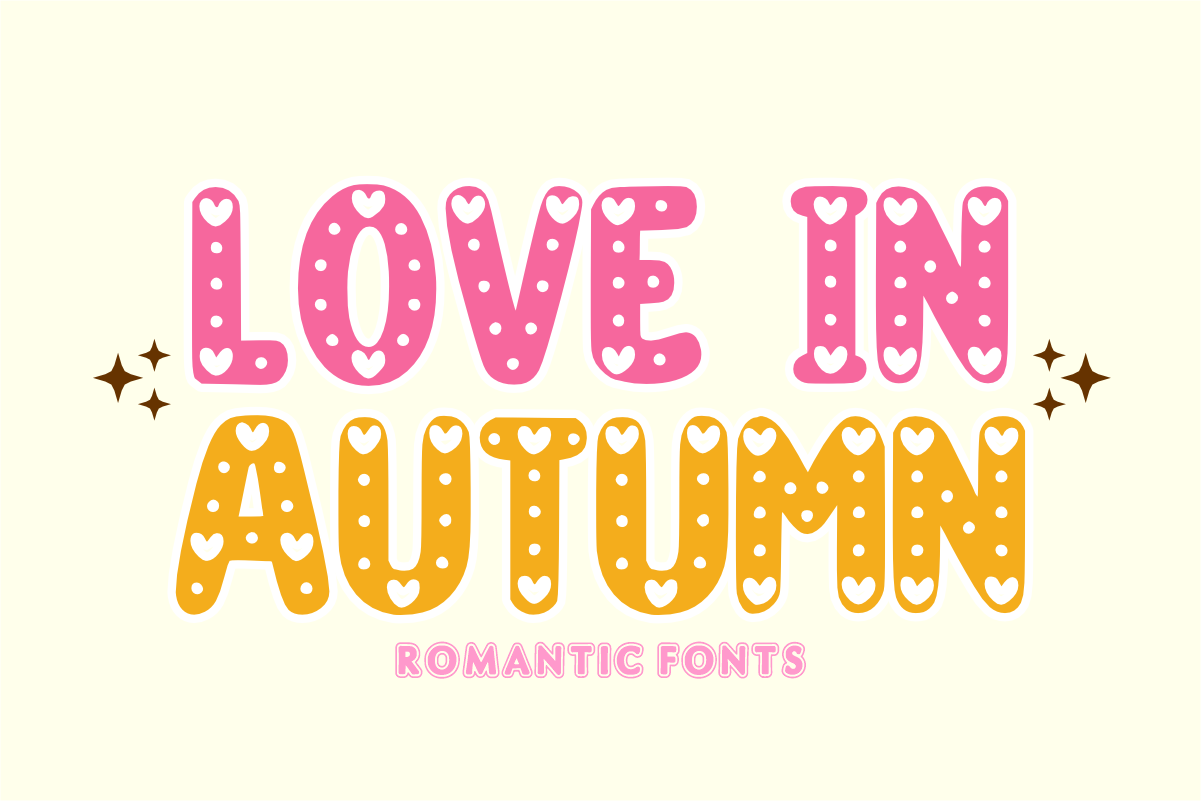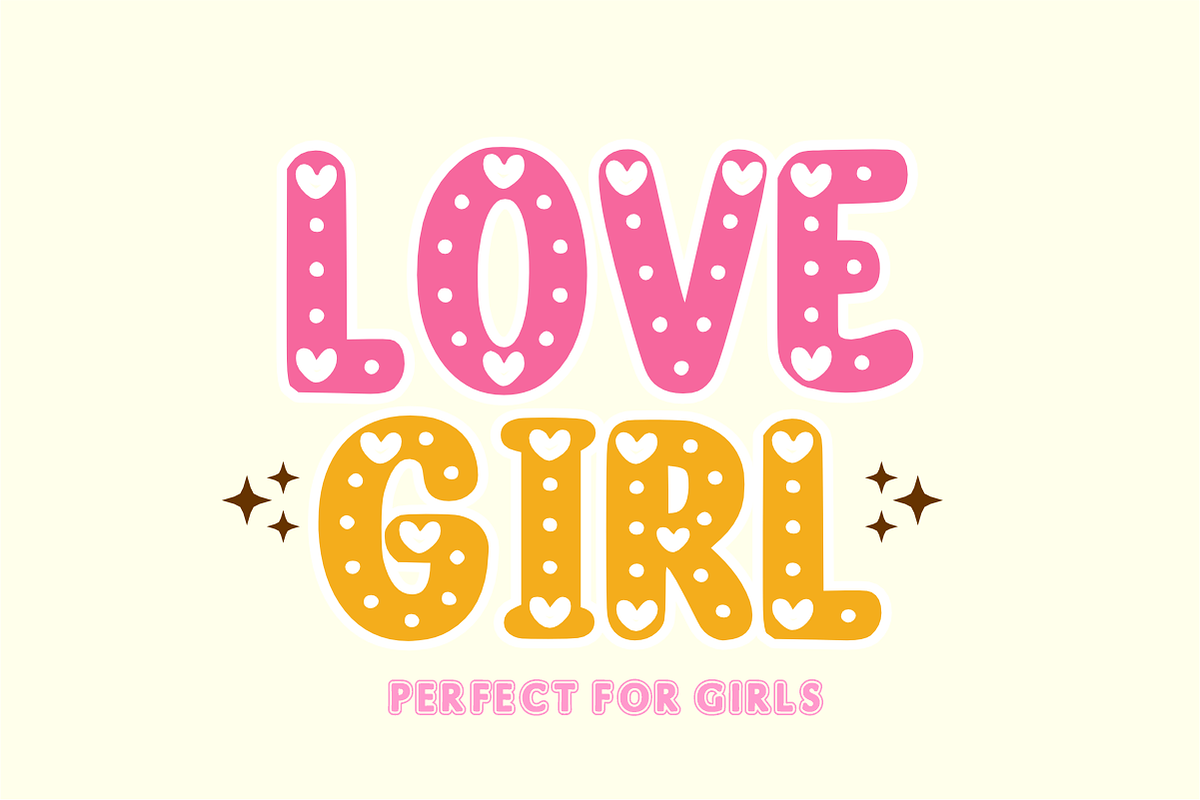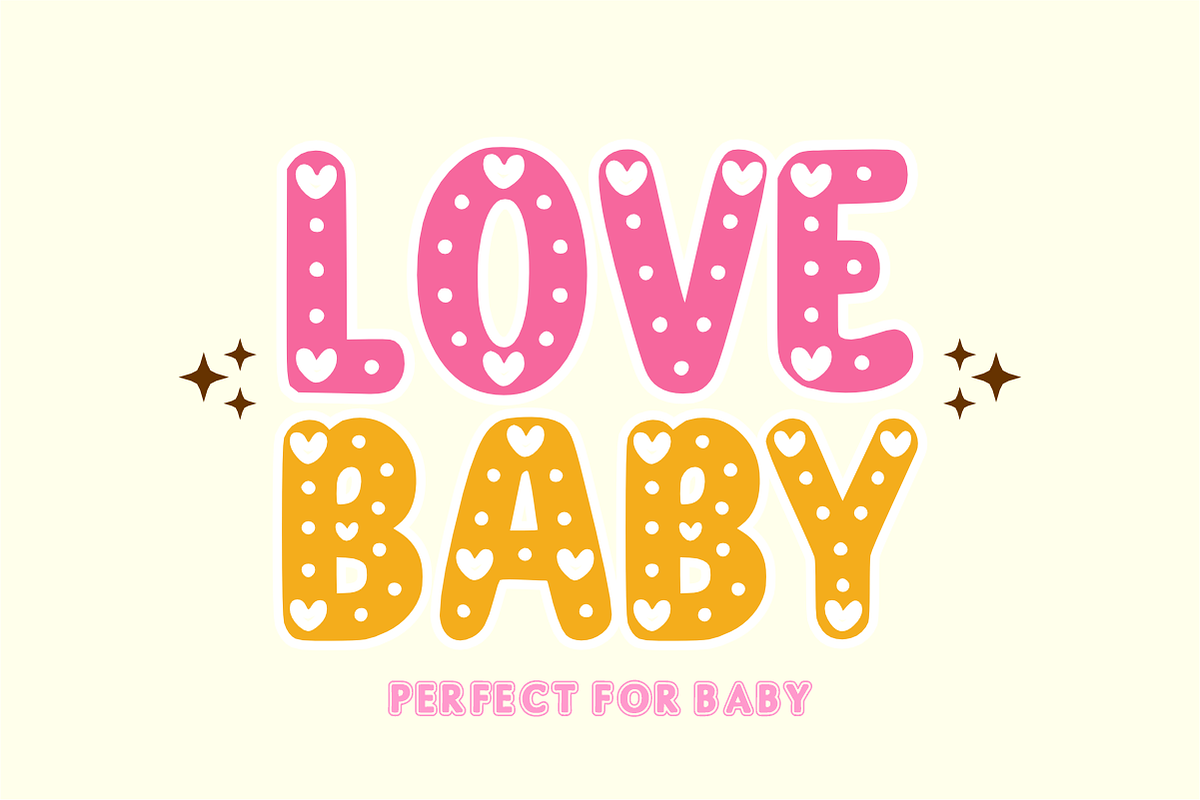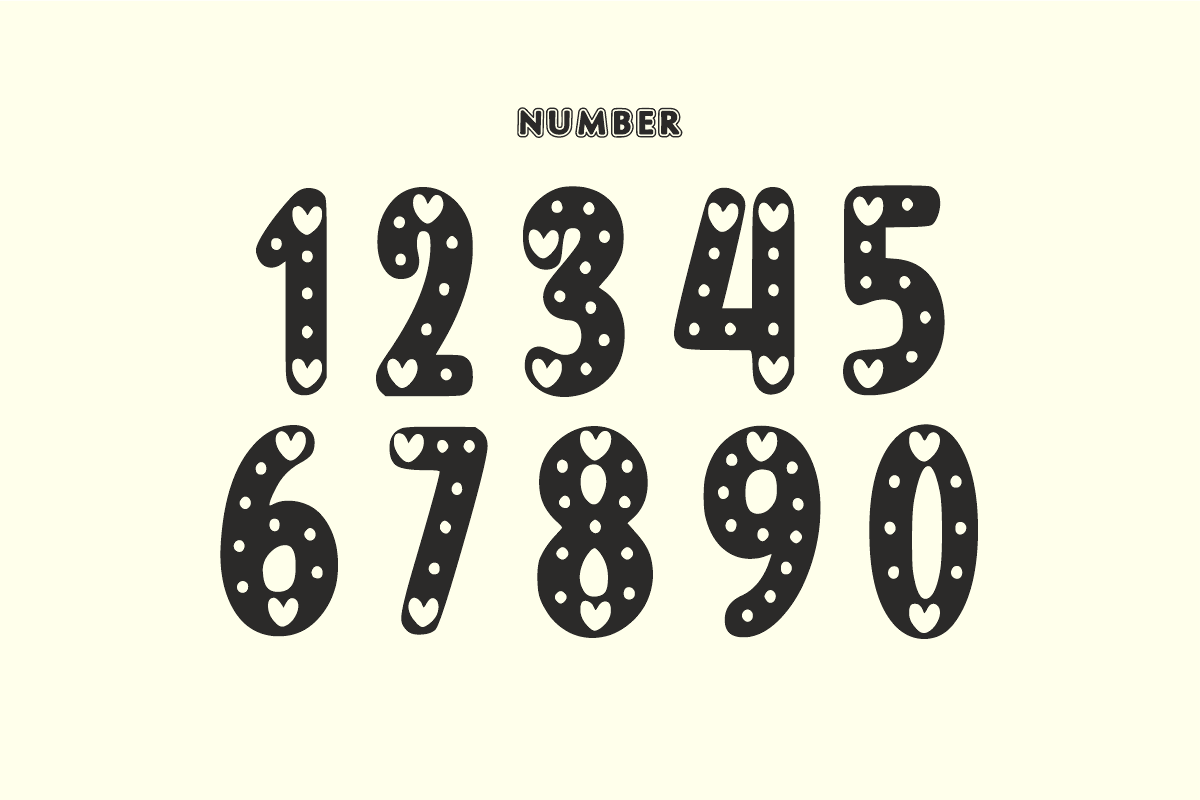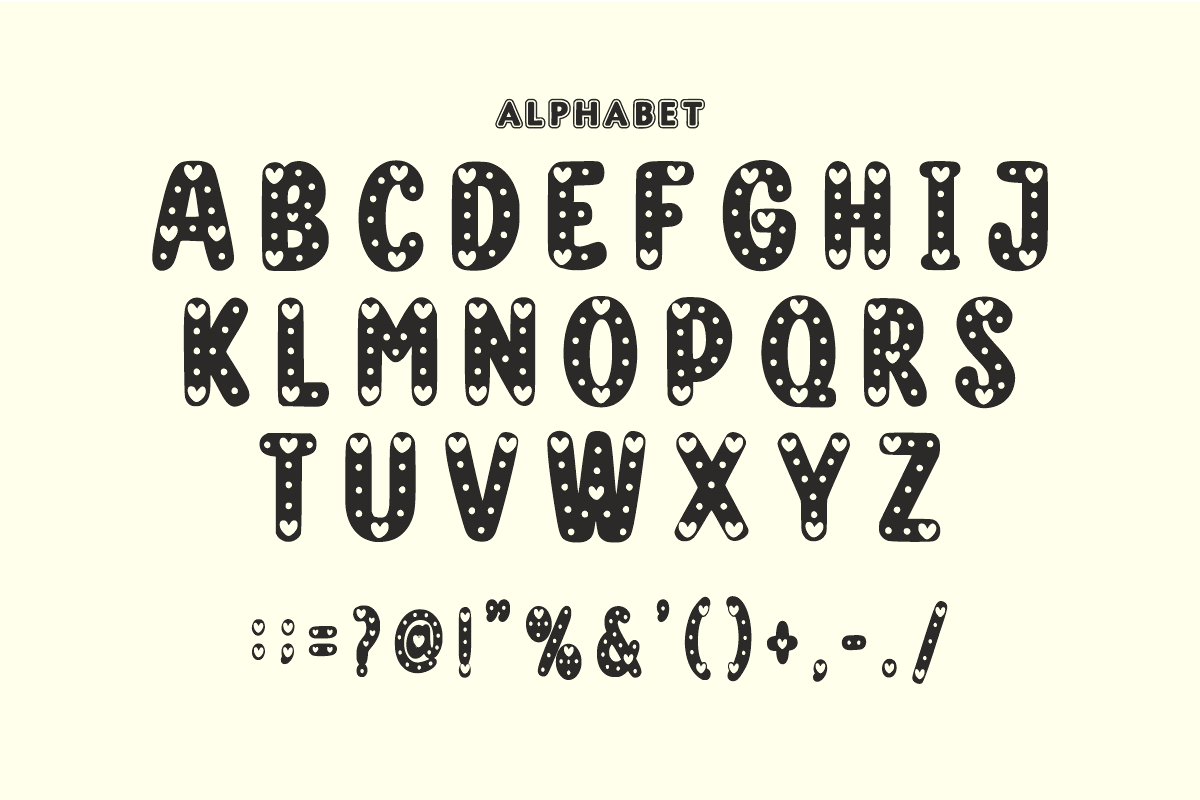
Love in Autumn - Decorative Font
๐ Love in Autumn โ Sweet Patterned Display Font ๐ Fall in love with every letter! ๐งธ
Love in Autumn is a charming, bubbly display font designed to bring a cozy and romantic touch to your creative projects. Featuring adorable heart and dot patterns inside every character, this font is the perfect "secret ingredient" for designs that need to feel warm, playful, and full of love.
Whether you're creating seasonal autumn vibes or sweet Valentineโs crafts, this fontโs sticker-like bold outline and whimsical patterns will make your text pop!
โจ Why You'll Love It: Unique Details: Every letter is infused with cute hearts and decorative dots.
Full Set: Includes All Uppercase Letters, Numbers, and Essential Symbols.
Versatile: Perfect for headlines, stickers, and seasonal branding.
๐จ Perfect For: ๐ Greeting Cards & Invitations
๐ Autumn & Fall Seasonal Crafts
๐ Valentineโs Day Designs
๐ Merchandise & T-Shirt Printing
๐ฑ Social Media Quotes & Thumbnails